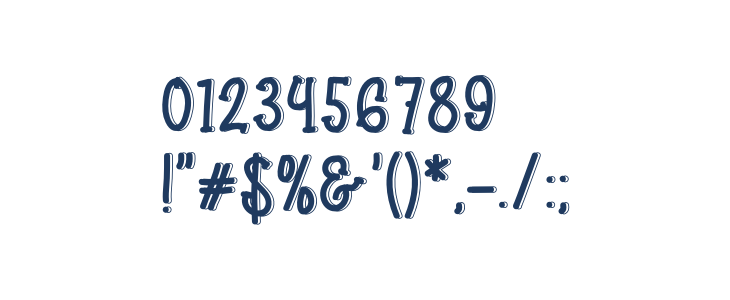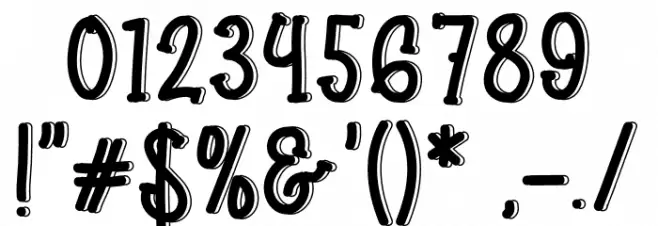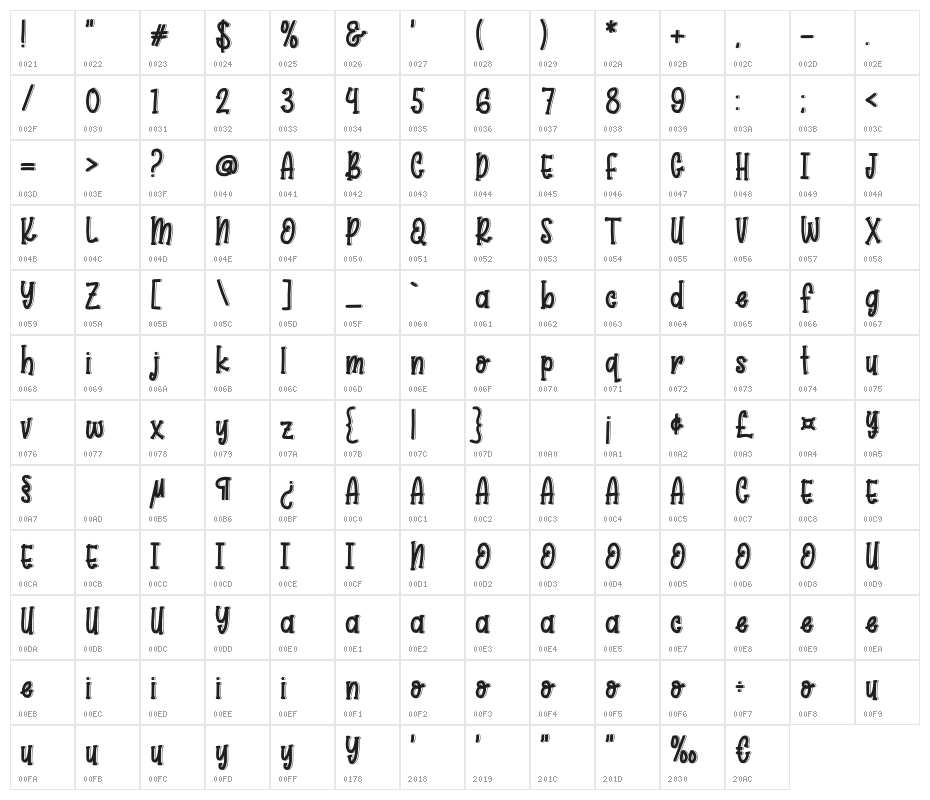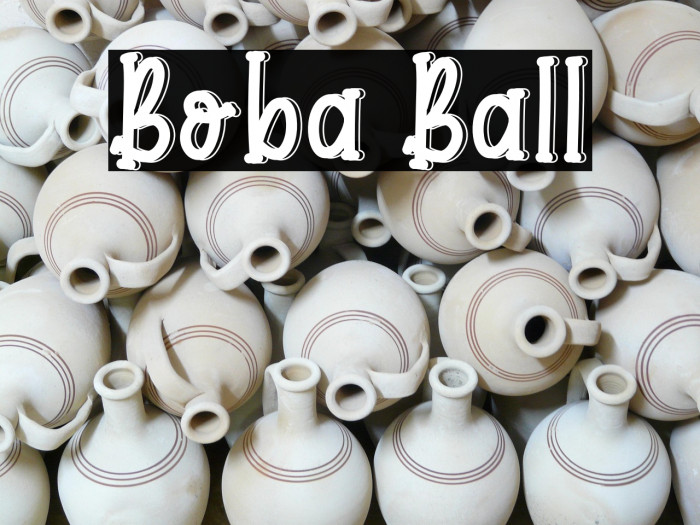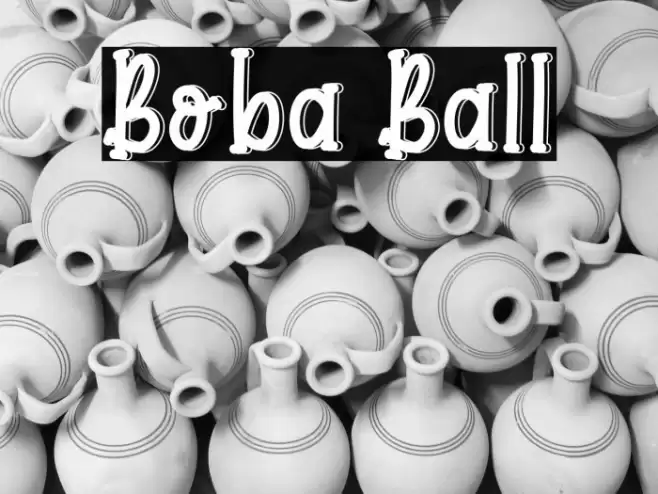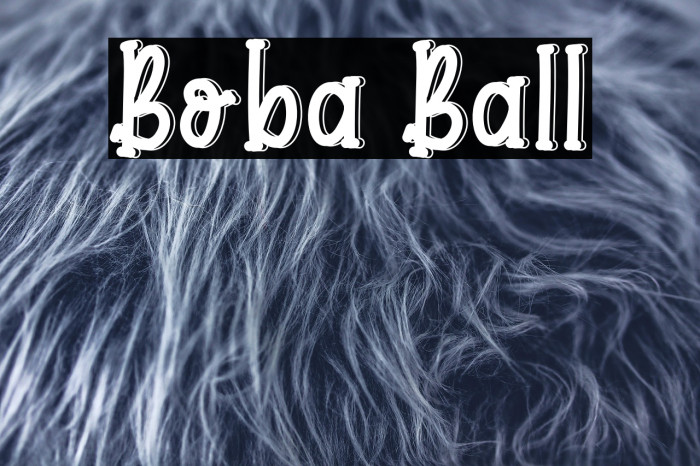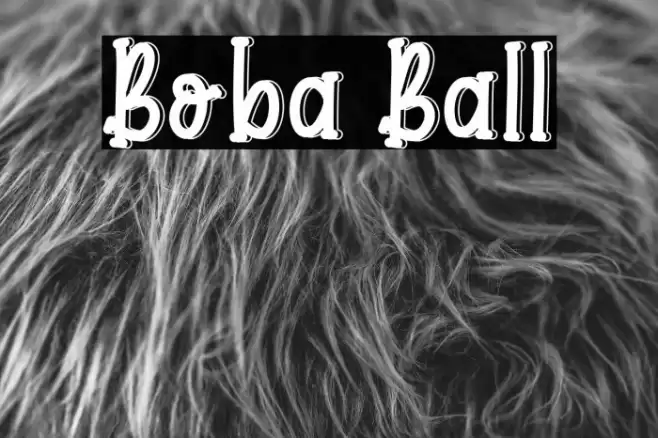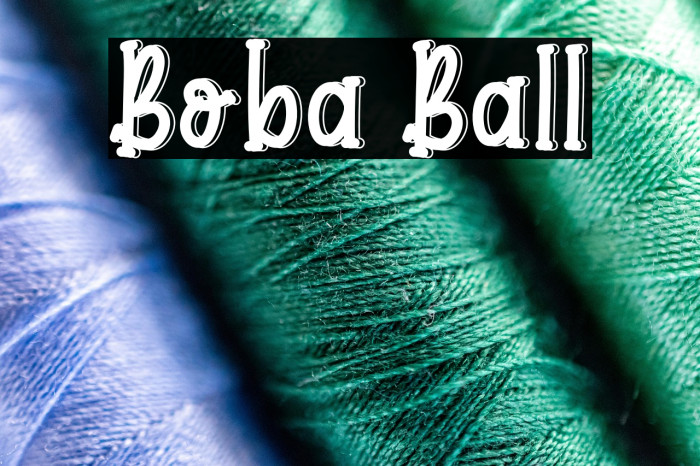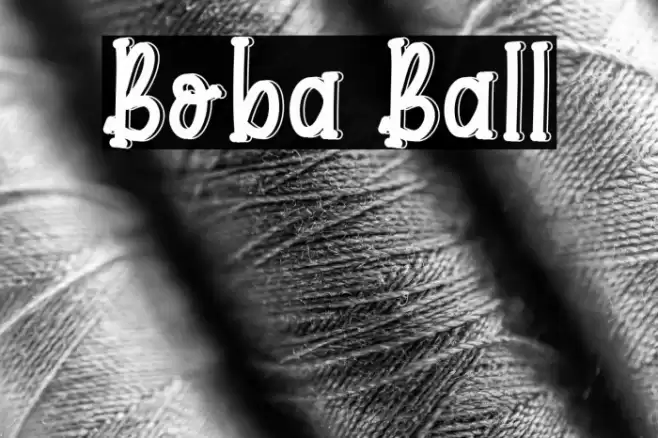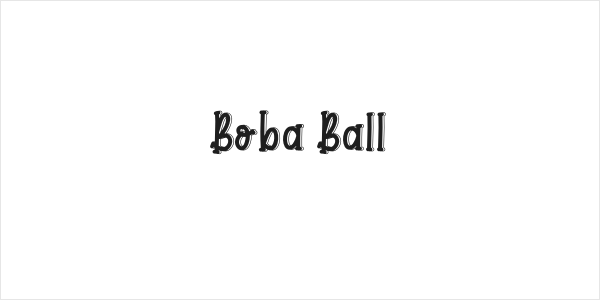
Boba Ball Font
Boba Ball Description
This playful and bold font features a unique bubble-like design with thick, rounded strokes and a shadow effect that gives it a three-dimensional appearance. The characters are slightly irregular, adding a whimsical and fun touch to the overall look. The uppercase and lowercase letters maintain a consistent style, with the numbers and special characters following suit. This font's distinct style makes it stand out, perfect for projects that require a lively and energetic feel.